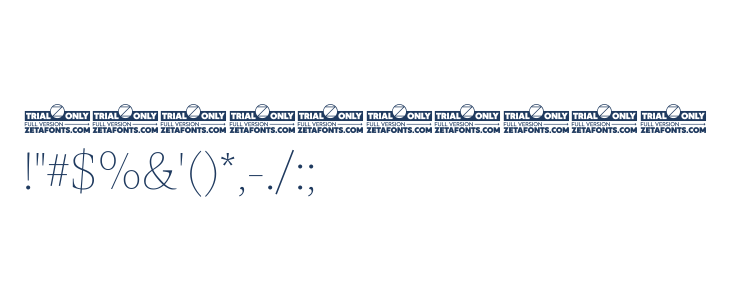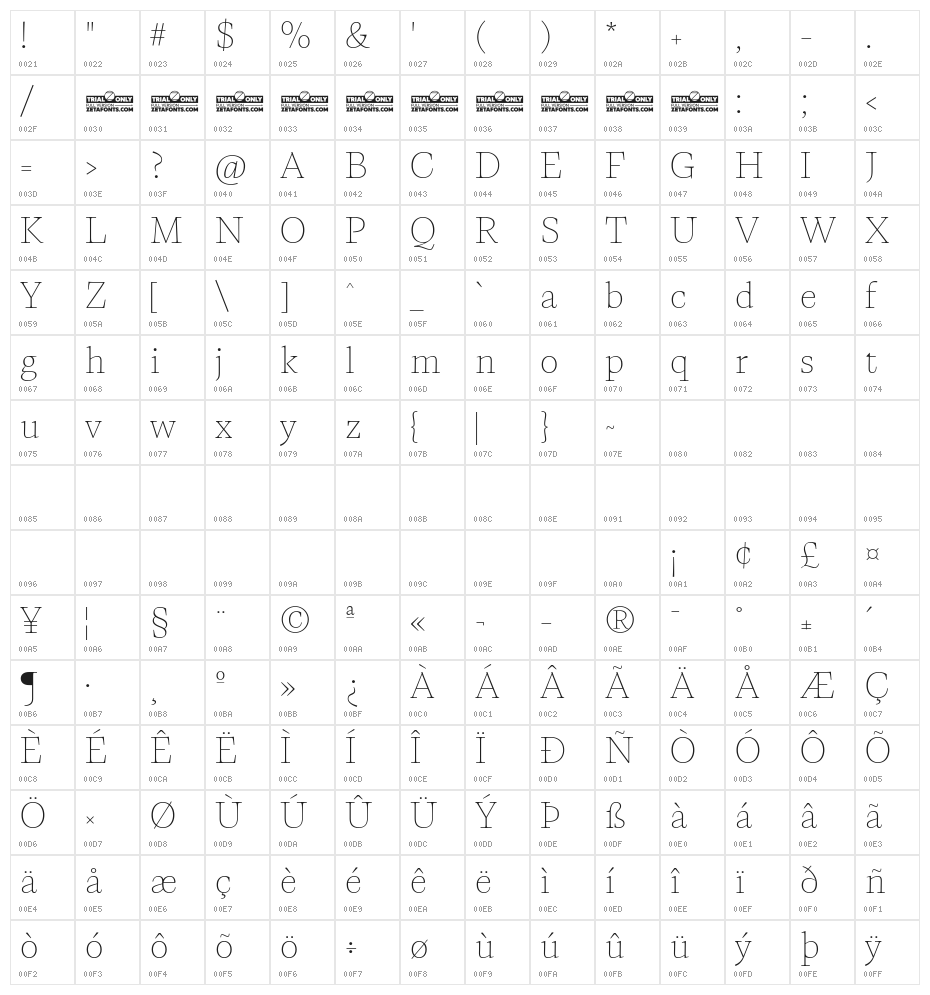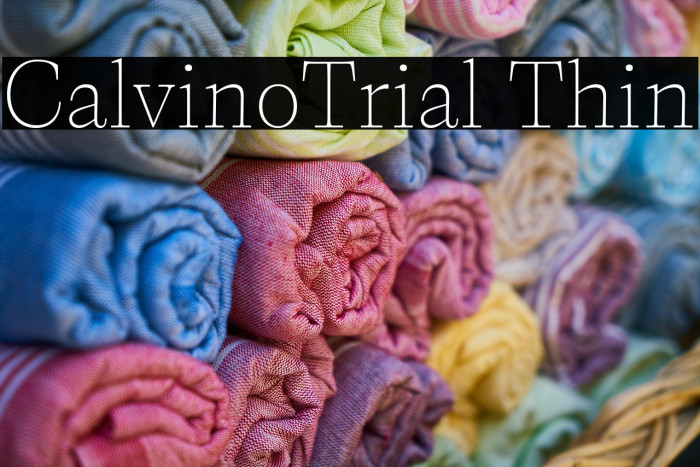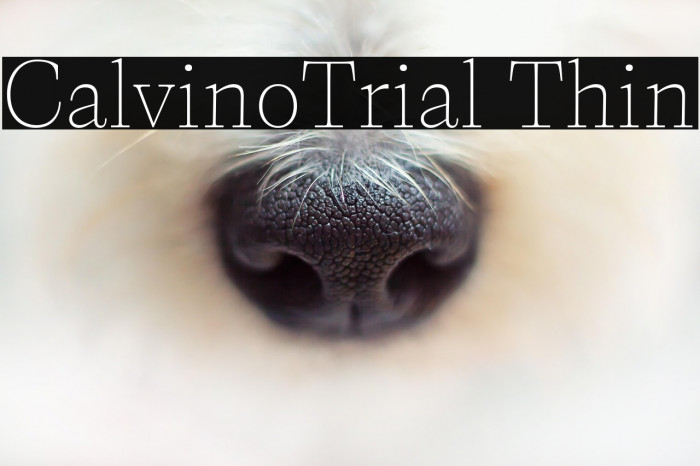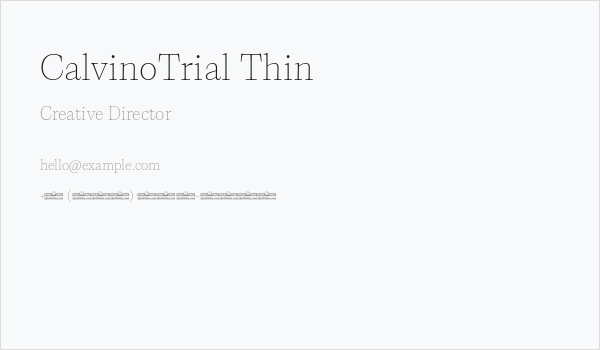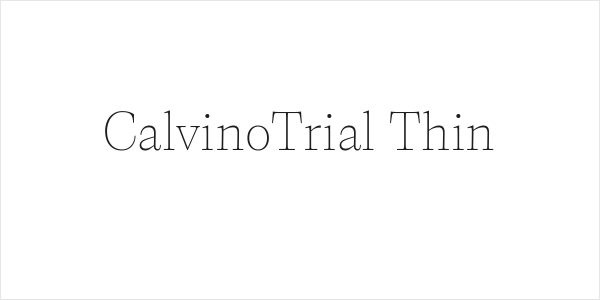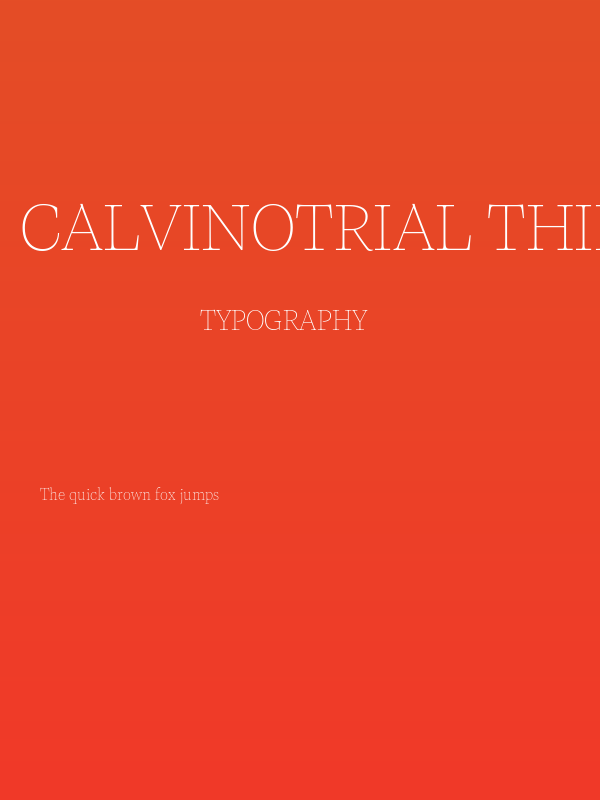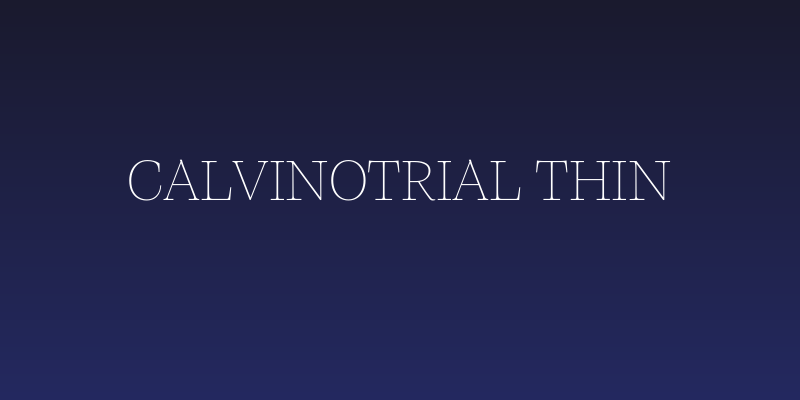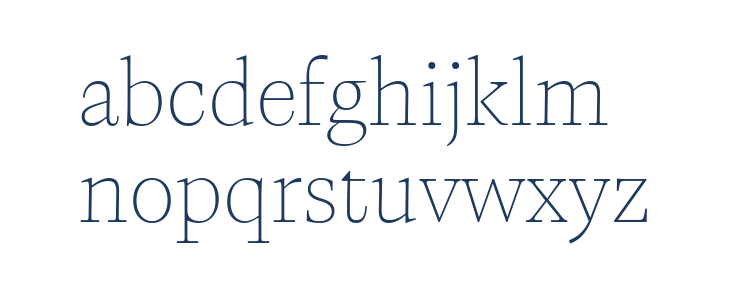
CalvinoTrial Thin Font
CalvinoTrial Thin Description
This font features a refined and elegant serif style with thin, delicate strokes that convey a sense of sophistication and modernity. The uppercase letters are tall and stately, while the lowercase letters maintain a consistent and harmonious flow. The numerals are clear and legible, complementing the overall aesthetic. Special characters are thoughtfully designed, maintaining the font's cohesive look. This typeface is perfect for projects that require a touch of elegance and clarity.